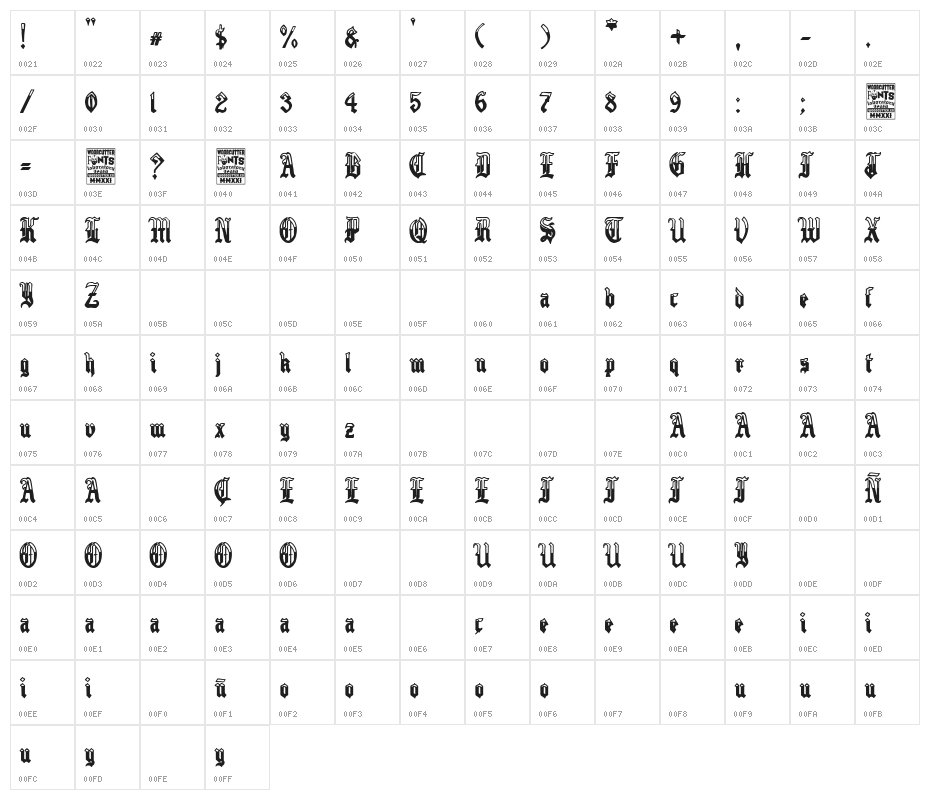
Barcelona Winter Font
Barcelona Winter Description
A highly ornamental, angular typeface with dramatic thick and thin strokes, sharp serifs, and elaborate details reminiscent of traditional blackletter calligraphy. The characters feature pointed terminals and strong vertical emphasis, creating a bold and historic appearance.
| Overall Style | Decorative, Vintage, Gothic |
| Use Case | Headlines, Logos, Decorative text |
| Proposed Projects | Posters, certificates, book covers, branding for historic or gothic themes, event invitations. |